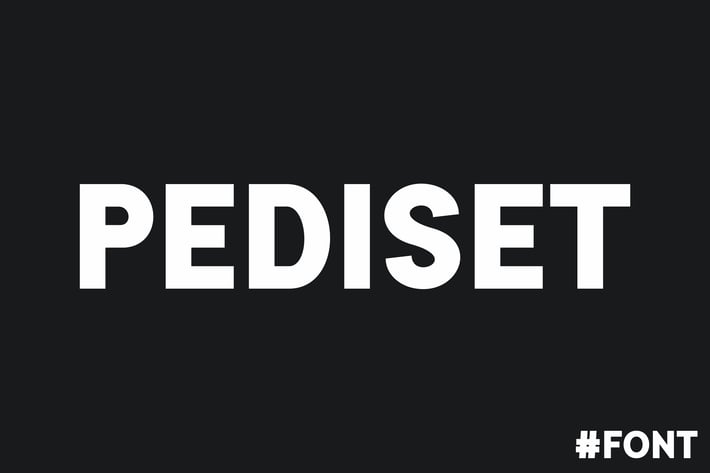
Pediset - Desktop Font
PEDISET - Bold & Striking Uppercase Font\
PEDISET is a powerful, modern, and stylish typeface designed for desktop use and uppercase typography. Perfect for branding, headlines, posters, logos, and any design that demands bold attention.
π₯ Key Features:\
β Uppercase-only design for a strong visual impact\
β Ideal for branding, headlines, and editorial use\
β High readability and versatility\
β¨ Perfect for:\
Logo Design\
Magazine & Editorial Layouts\
Posters & Banners\
Branding & Advertising\
Social Media Graphics\
Bring your designs to the next level with PEDISETβa must-have font for bold typography lovers!